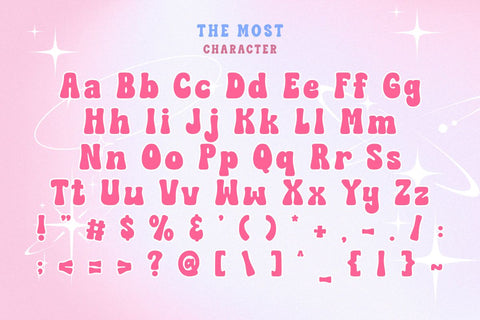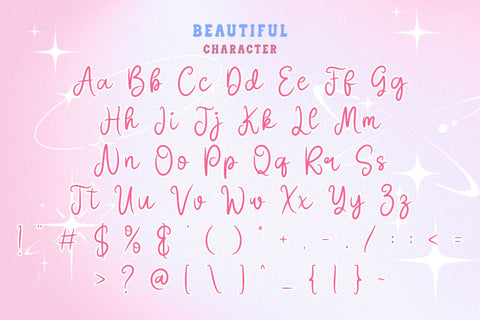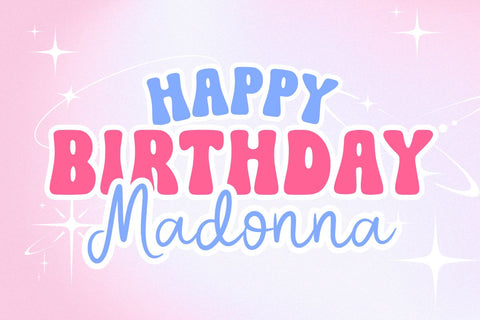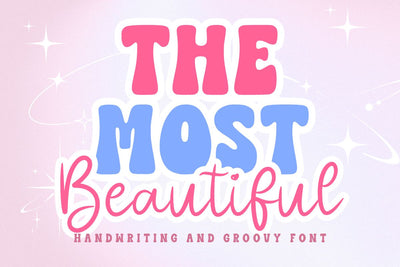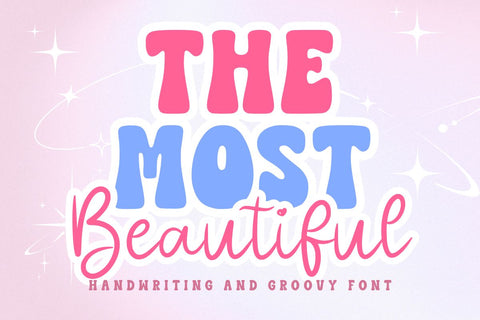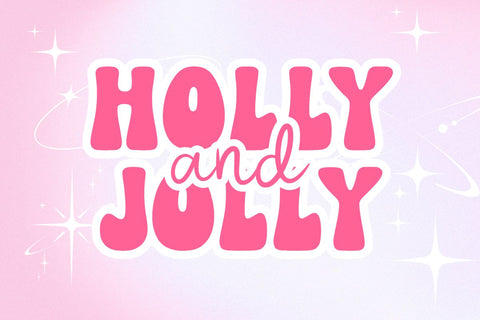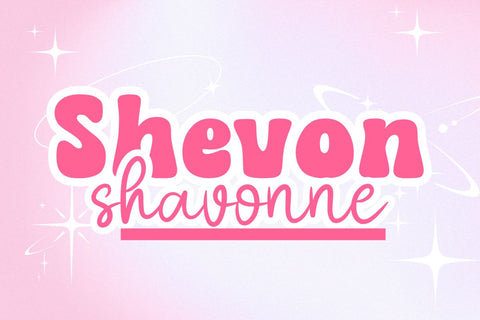
The Most Beautiful - Cute Duo Font
The Most Beautiful is a fancy retro groovy and handwriting font that brings a fun, nostalgic vibe to your creative projects. Its thick strokes and playful curves make it perfect for adding a vintage flair to any design.